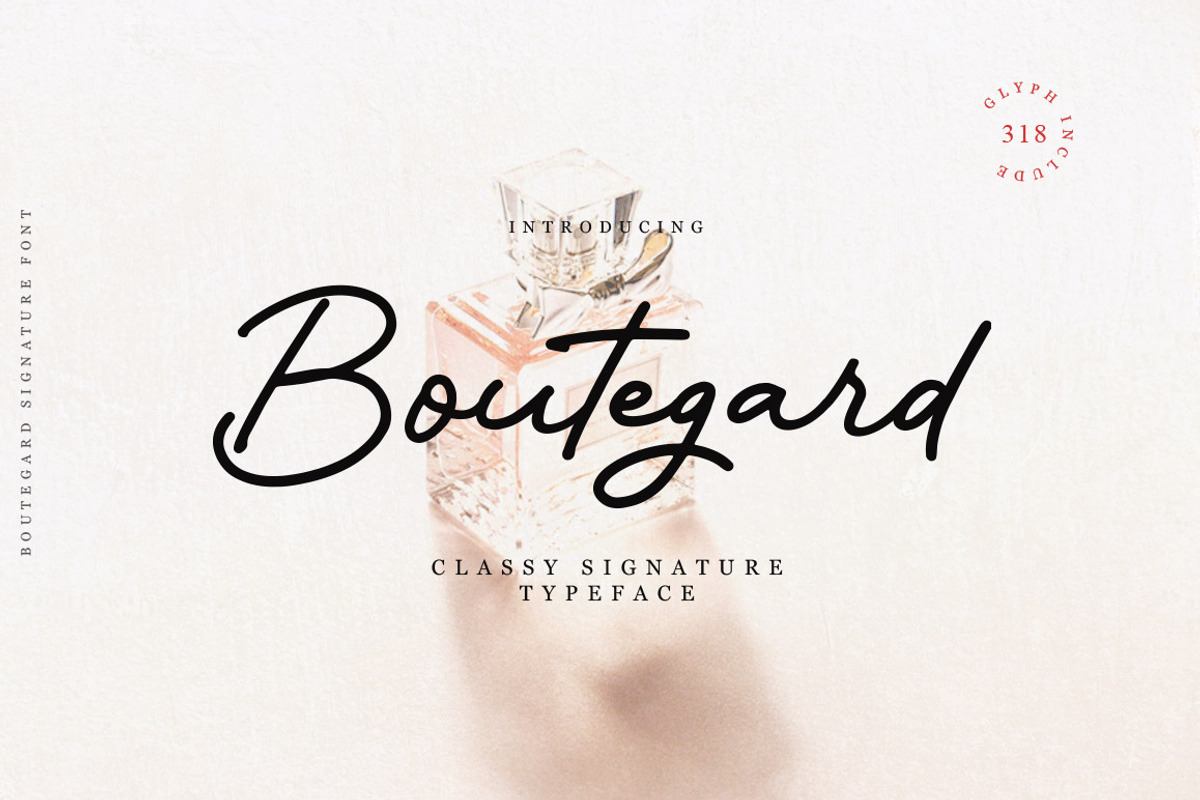
You must purchase this font for commercial use. However, you can download Boutegard Classy Signature Font Free Download for testing purposes. Boutegard is an elegant signature-style font that combines sophistication with a personal, handwritten feel. Perfect for creating classy branding, invitations, wedding stationery, logos, and high-end designs, this font adds a touch of luxury and authenticity to your projects.
With its smooth, flowing strokes and refined letterforms, Boutegard Classy Signature Font brings a premium, bespoke aesthetic to any design. Whether you're working on a luxury brand, crafting an elegant invitation suite, or adding a personal touch to your design, this font adds both style and personality.